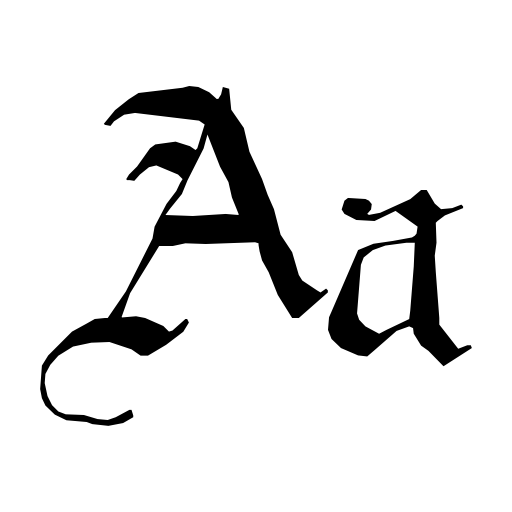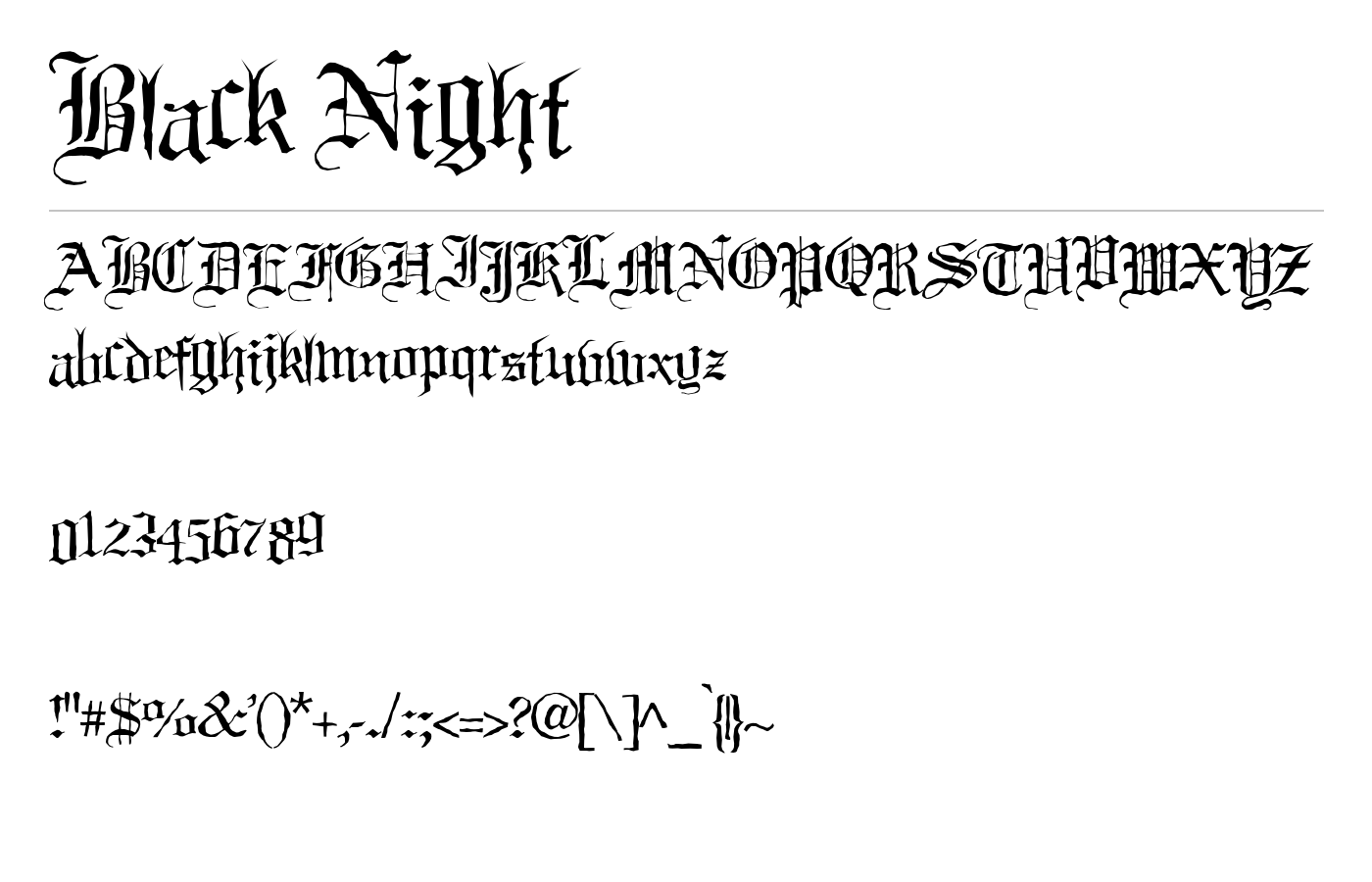
Black Night is a bold, blackletter-style serif font characterized by its dramatic, sharp strokes and intricate, gothic details. Its tall, narrow letterforms with pronounced contrast and elaborate swashes convey a historic, medieval vibe, making it ideal for designs that aim to evoke tradition, mystery, or a classic, elegant atmosphere. This font works best in headlines, logos, and branding for projects that want to stand out with a strong, vintage personality.
Black Night Font
About Black Night Font